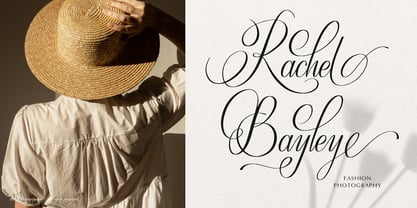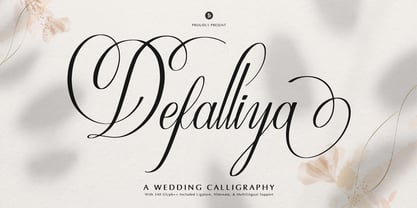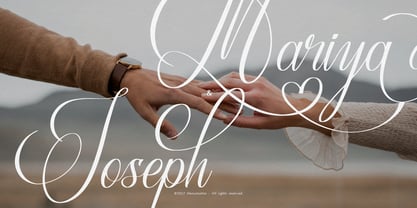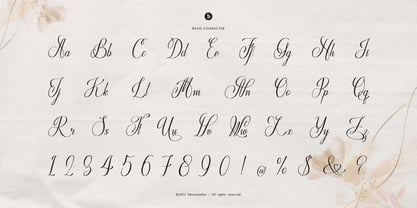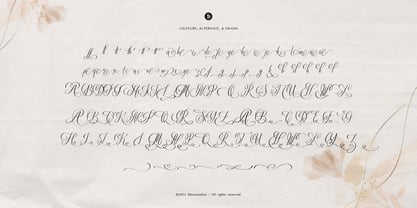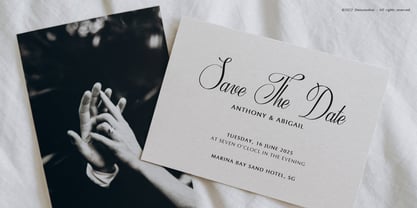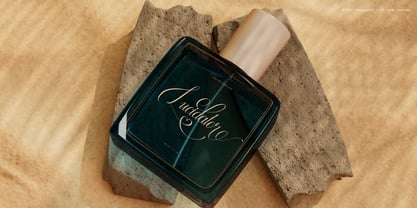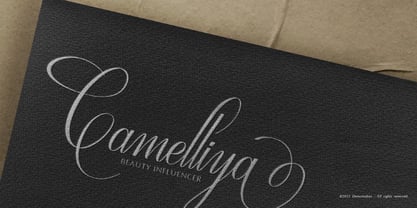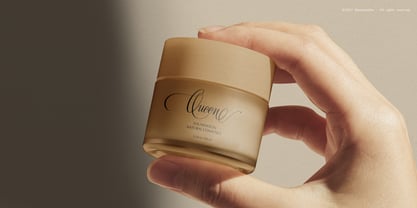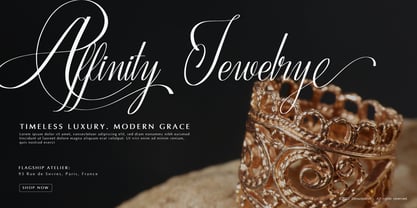
Defalliya
The Defalliya Font Family was designed by Dede Nugraha and published by Denustudio. Defalliya contains 2 styles.
Defalliya | Wedding Calligraphy, from Denustudios, suitable for any projects such as: logos, branding projects, homeware designs, product packaging, mugs, quotes, posters, shopping bags, t-shirts, book covers, name card, invitation cards, greeting cards, label, photography, watermark, special events, and all your other lovely projects that need Calligraphy a taste.
• Regular and Italic
• Standard glyphs
• Alternate and Ligature
• Fonts include multilingual support